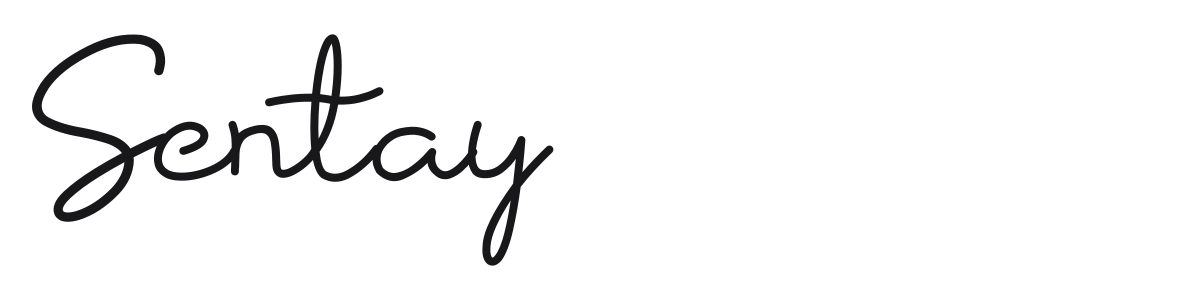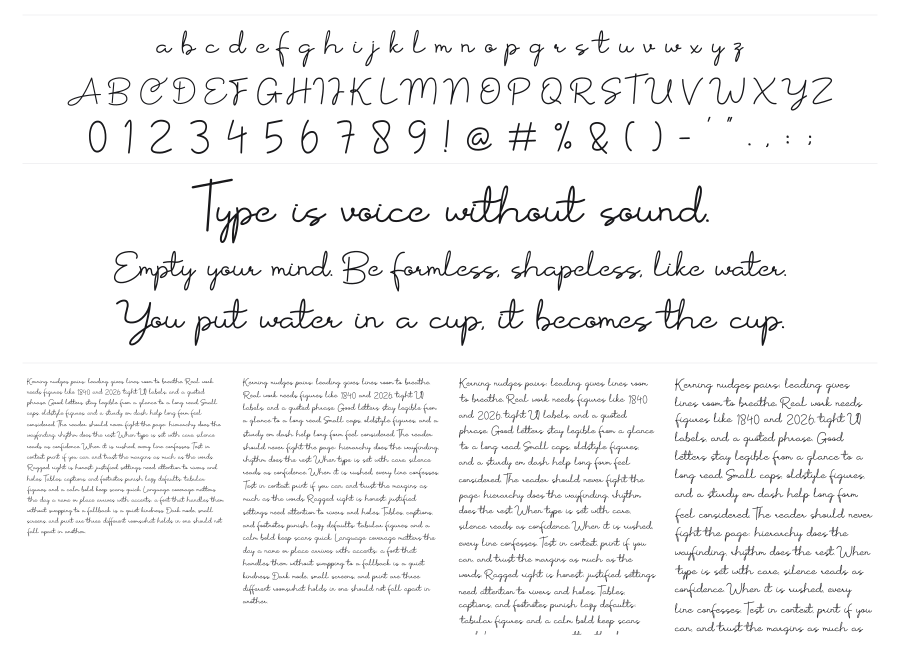
Sentay
Sentay is an elegant monoline signature script with continuous flowing strokes and natural looping connections. Its near-zero stroke contrast and airy proportions give it a relaxed, handwritten quality without sacrificing refinement. Strong at large sizes in branding, packaging, and invitation design.